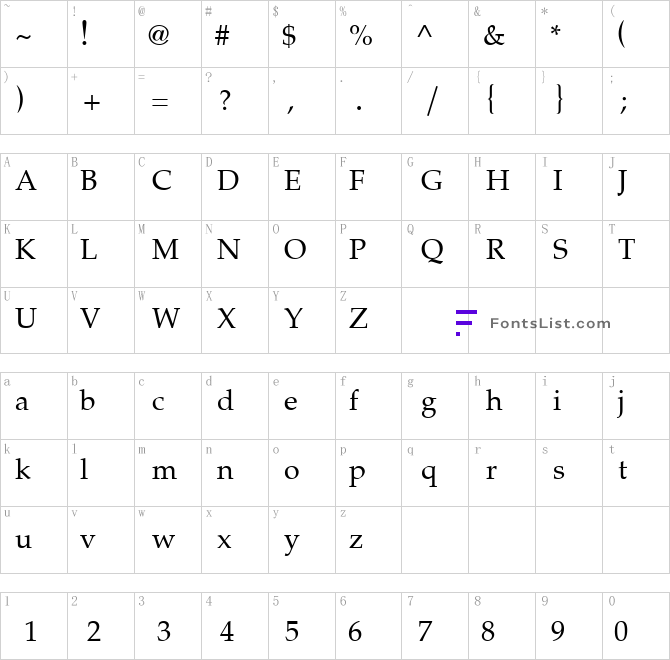
- Font Name:ASVCodar LT Light
ASVCodar-LT-Light.ttf is a very beautiful artistic font, ASVCodar-LT-Light.ttf is widely used in the design and printing of various books and pictures,ASVCodar-LT-Light.ttf has a strong visual impact,ASVCodar-LT-Light.ttf is a commonly used font in newspapers, magazines and books, and is used in posters, e-commerce Poster design, store design, logo design, font design and other fields.ASVCodar-LT-Light.